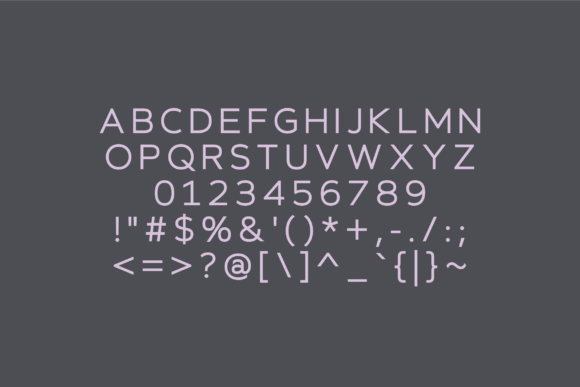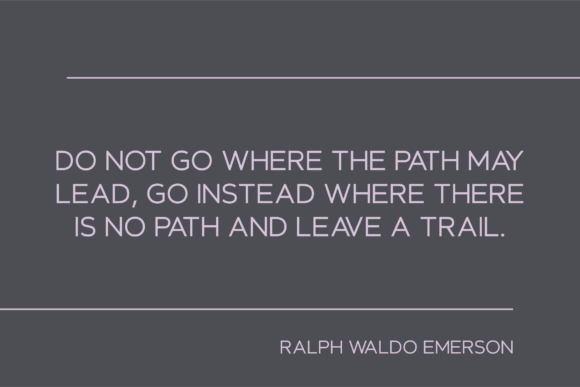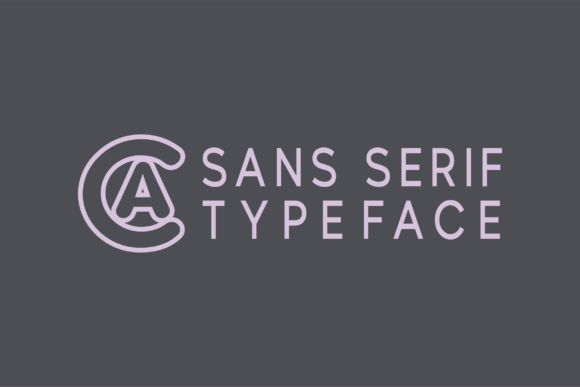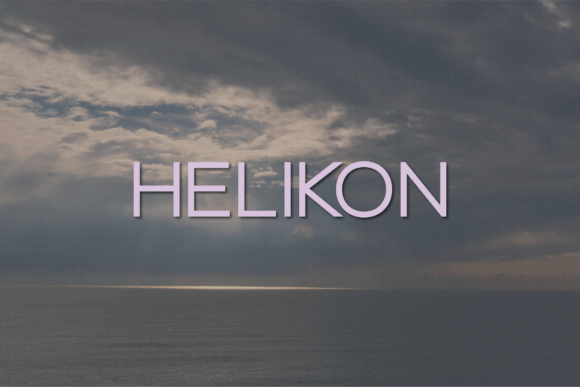
Unveiling Helikon: The Ultimate Sans Serif Font for Modern Design
In the realm of typography, a font can make or break the visual appeal of a design. For designers and crafters seeking a typeface that embodies both modern sophistication and timeless elegance, Helikon Font is the perfect solution. This highly adaptable sans serif font is a versatile tool that can elevate your designs and messages to new heights.
The Anatomy of Helikon
Helikon Font boasts an impressive range of characters, including capital letters, digits from 0 to 9, and a diverse array of punctuation marks and symbols. This extensive library of glyphs makes it an essential component in any designer’s toolkit. Whether you’re crafting a logo, invitation, quote, advertisement, or print material, Helikon provides the perfect blend of form and function.
Endless Applications
One of the standout features of Helikon Font is its incredible versatility. Its clean lines, precise curves, and balanced proportions make it suitable for a wide range of applications. Here are just a few examples of how Helikon can shine:
- Logos: Create a lasting impression with a custom logo that exudes professionalism and style.
- Wedding Invites: Set the tone for a special day with beautifully designed invitations that showcase your personal taste.
- Quotes: Add impact and emphasis to inspiring quotes, making them perfect for social media, posters, or print materials.
- Advertisements: Grab attention and drive engagement with eye-catching ads that feature Helikon’s modern aesthetic.
- Print Material: Elevate your brochures, flyers, and business cards with a font that exudes confidence and sophistication.
- Magazine Spreads: Create visually stunning layouts that showcase your brand’s personality and style.
Why Choose Helikon?
With so many fonts available, why choose Helikon? Here are just a few reasons why designers and crafters are falling in love with this exceptional typeface:
- Unique Blend of Modern and Classic: Helikon strikes the perfect balance between modern aesthetics and timeless elegance.
- Exceptional Versatility: Use Helikon for a wide range of applications, from logos and invitations to quotes and advertisements.
- Highly Adaptable: Helikon’s clean lines and balanced proportions make it suitable for various design styles and themes.
- Extensive Glyph Library: Access a vast array of characters, digits, punctuation marks, and symbols to bring your designs to life.
Tips for Working with Helikon
To get the most out of Helikon Font, here are some expert tips:
- Experiment with Font Sizes: Helikon’s clean lines and balanced proportions make it suitable for a wide range of font sizes.
- Play with Color: Pair Helikon with bold colors to create visually stunning designs that grab attention.
- Mix and Match: Combine Helikon with other fonts to create unique and eye-catching typography.
In conclusion, Helikon Font is a game-changer for designers and crafters seeking a versatile, sophisticated, and timeless typeface. With its extensive glyph library, exceptional versatility, and unique blend of modern and classic aesthetics, Helikon is the perfect solution for a wide range of design applications. Elevate your designs and messages to new heights with the power of Helikon.